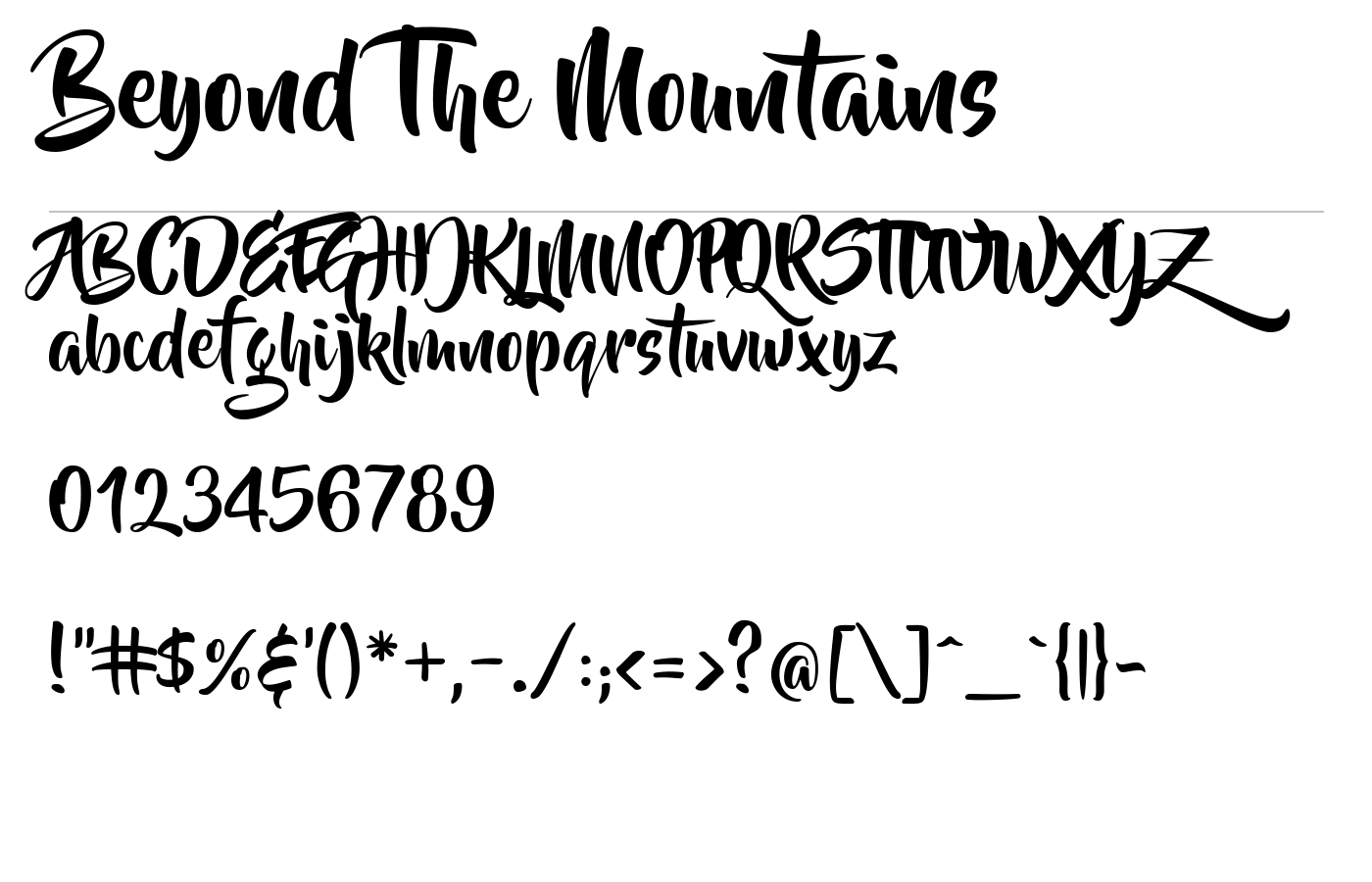
Beyond The Mountains is a lively, brush-style script font that exudes a casual and expressive feel with its bold, flowing strokes and dynamic letterforms. This font combines a hand-drawn look with legible, condensed shapes, making it perfect for adding a personal, artistic touch to branding, packaging, and headlines where a friendly and approachable vibe is desired. Its informal yet stylish character suits creative projects that need a warm, energetic, and modern handwritten appeal.
Beyond The Mountains Font
About Beyond The Mountains Font
| Font family | Beyond The Mountains Font |
| Designer | Clement Nicolle |